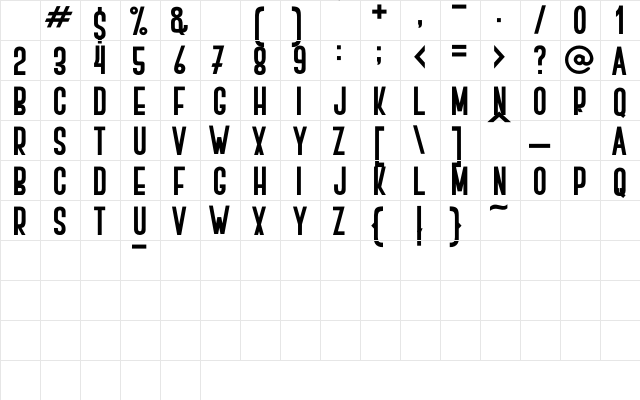
BOVEN 1 Regular
Regular ·  Muhammad Romzul Khoir ·
DesignerMuhammad Romzul Khoir
Design Context for BOVEN 1 Typeface
BOVEN 1 takes a measured approach to typography — its balanced proportions and neutral character make it a reliable workhorse for both digital and print work.